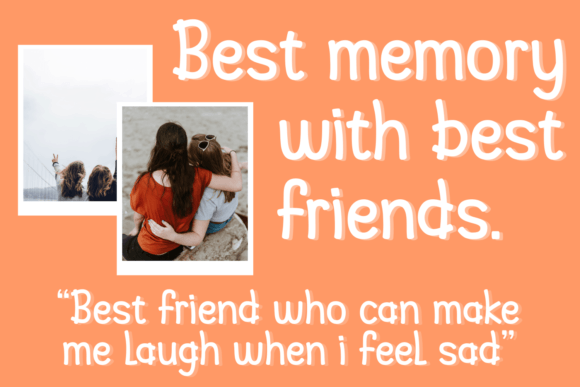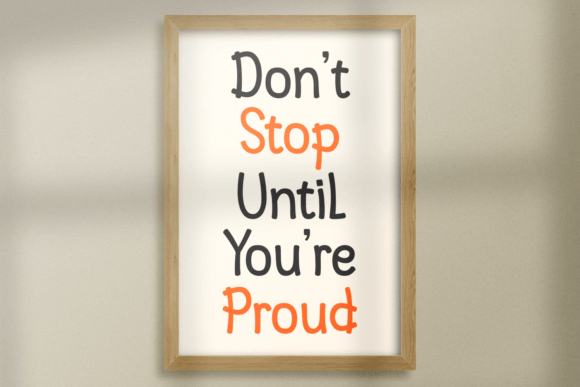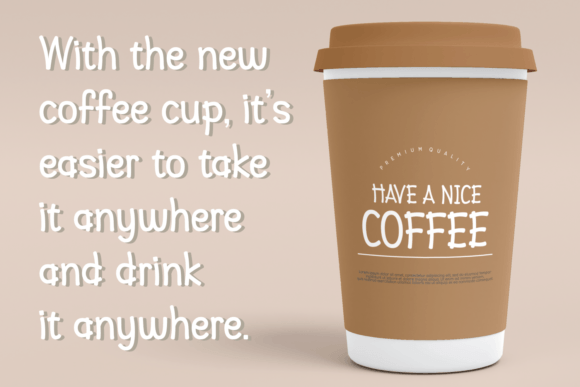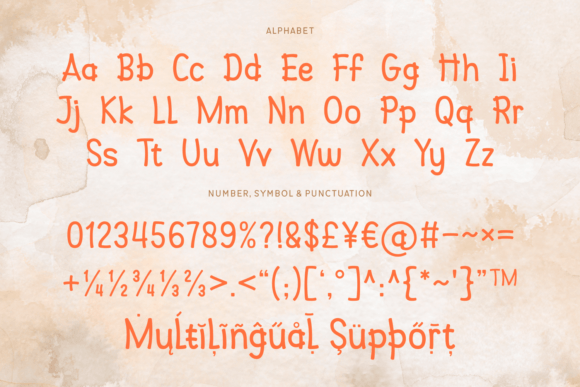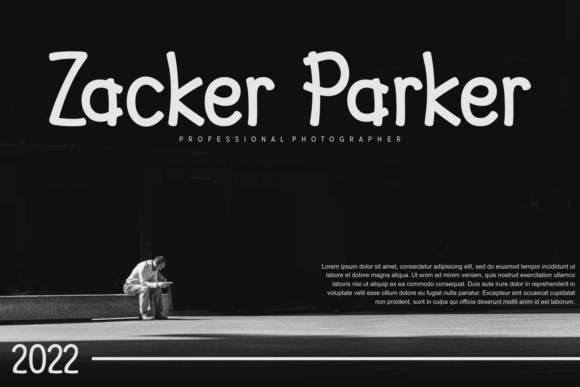
“Get Back To You” is an incredibly friendly rounded typeface that brings a casual and laid-back feel to your designs. This font is an excellent choice for posters, gifts, and similar design projects where you want to convey a relaxed and approachable vibe.
The friendly and rounded design of “Get Back To You” contributes to its inviting and easygoing aesthetic. The typeface is crafted to create a warm and welcoming atmosphere in your designs, making it suitable for various contexts where a friendly and approachable tone is desired.
Whether you’re working on posters, gifts, or other design projects, “Get Back To You” adds a touch of friendliness and casual charm. The rounded edges and overall design of the typeface contribute to a visually pleasing and harmonious look.
The font’s PUA encoding is a valuable feature, providing easy access to a variety of glyphs and swashes. This encoding ensures a seamless and convenient experience for users, allowing them to incorporate unique and decorative elements into their designs effortlessly.
In summary, “Get Back To You” is more than just a font; it’s a design tool that brings friendliness and a laid-back feel to your creative projects. Whether you’re aiming for a relaxed poster design or a welcoming gift, let “Get Back To You” be the typeface that adds a touch of warmth and approachability to your designs. Embrace its friendly rounded form and use it with ease to create designs that resonate with a casual and inviting charm.